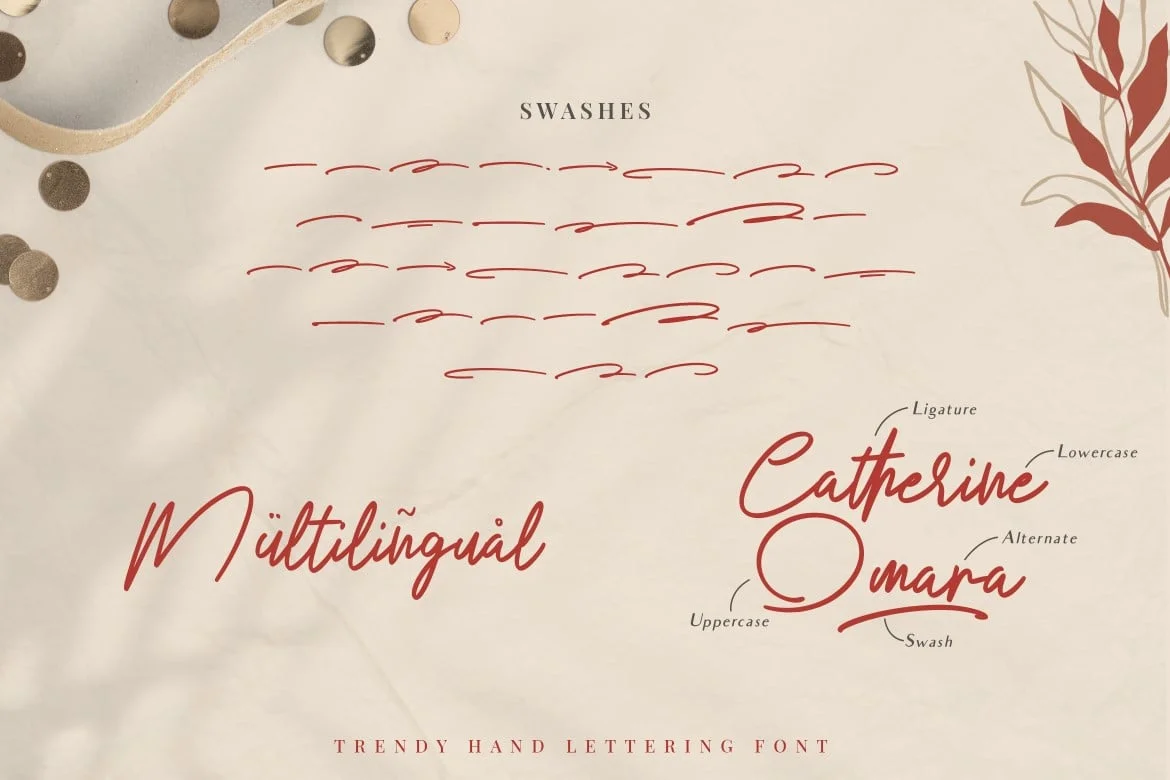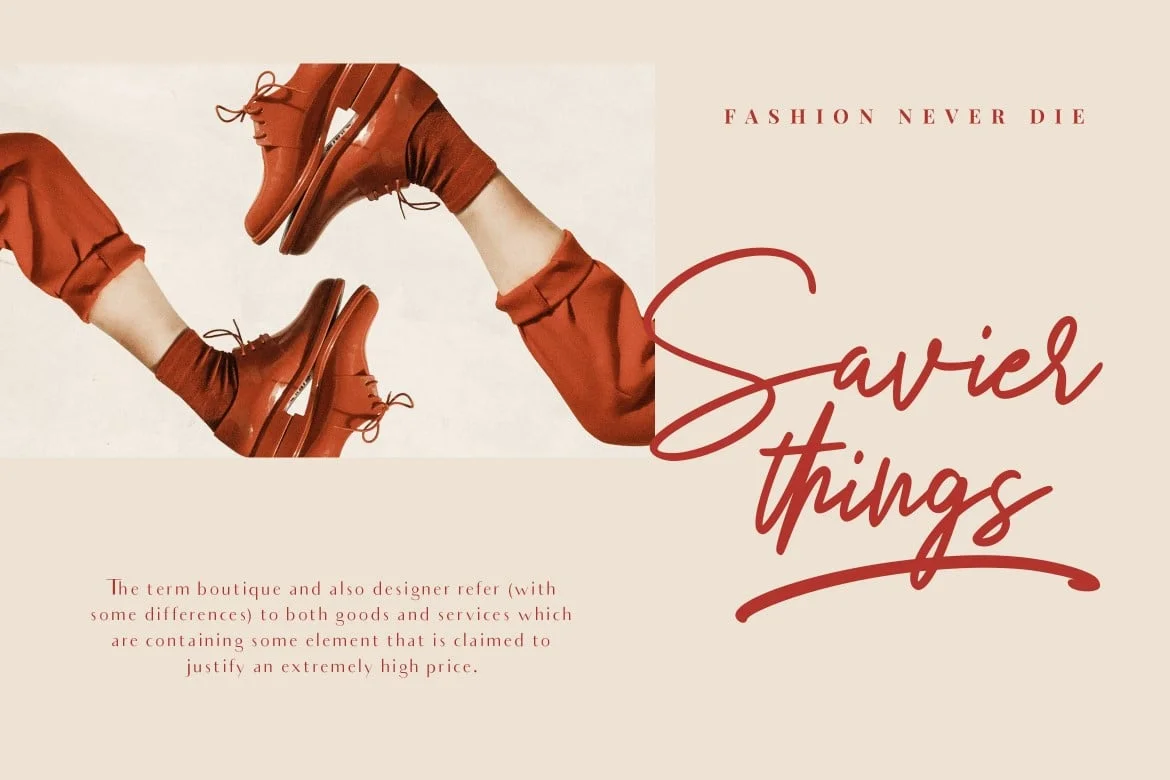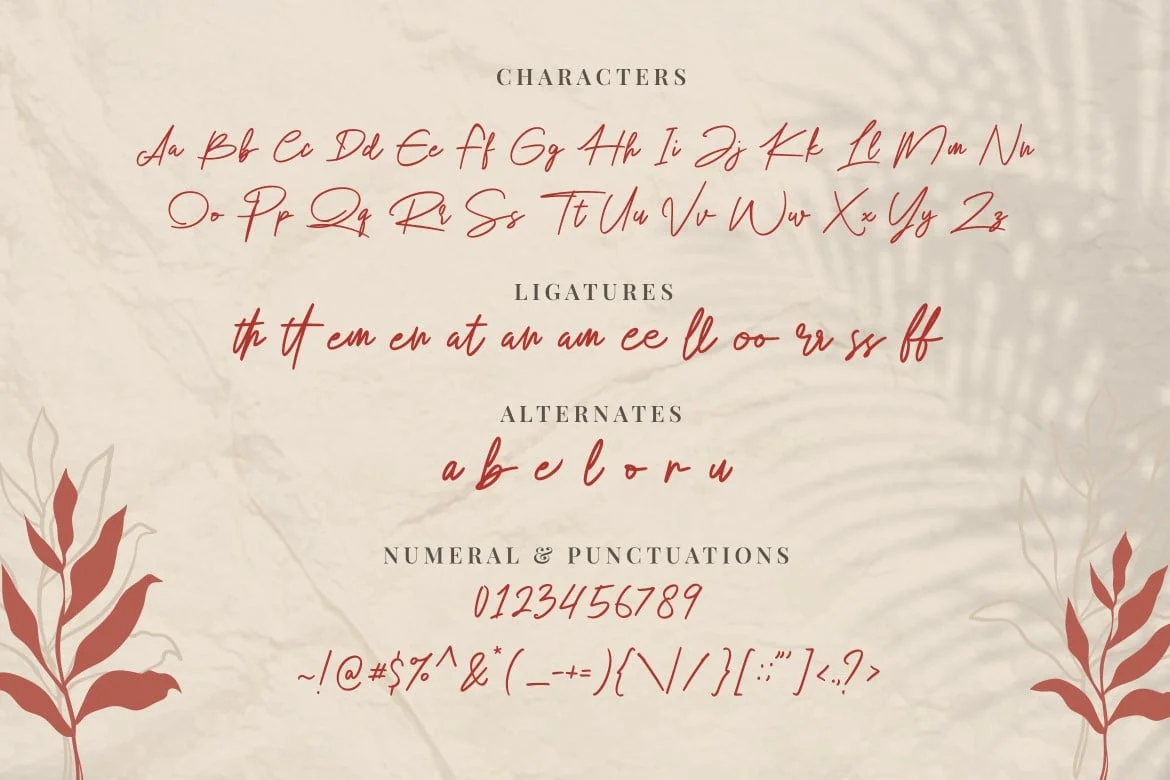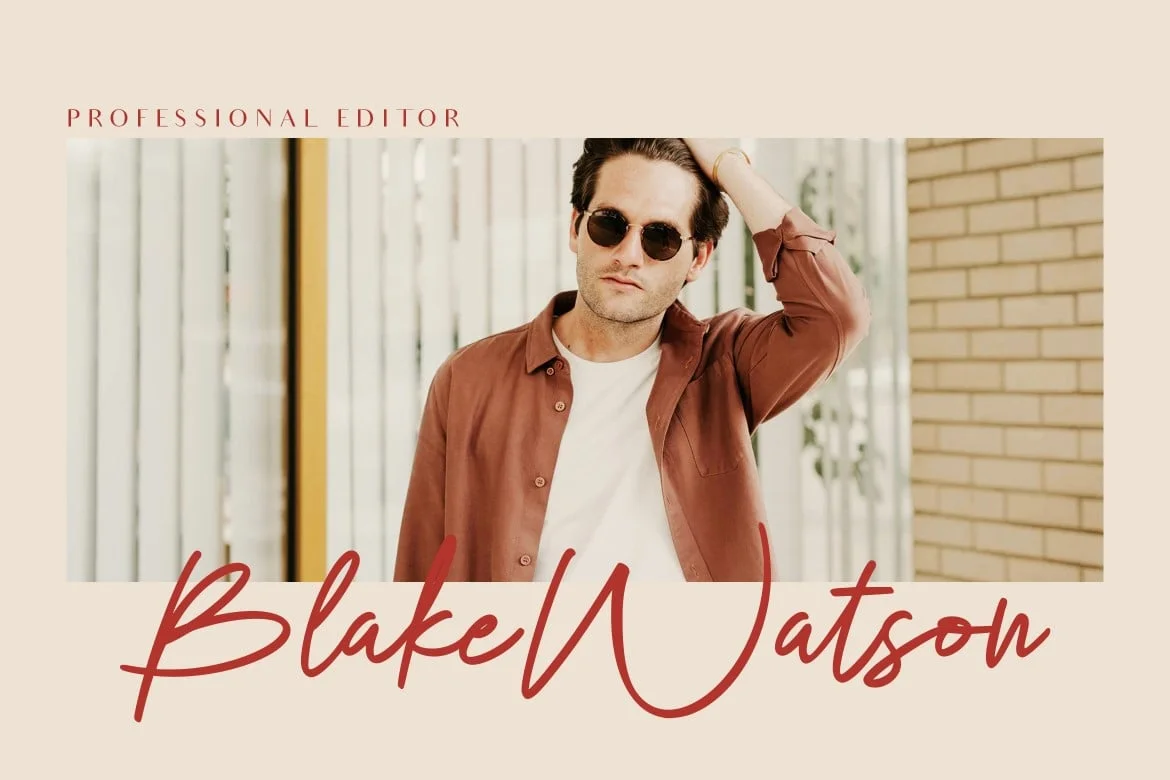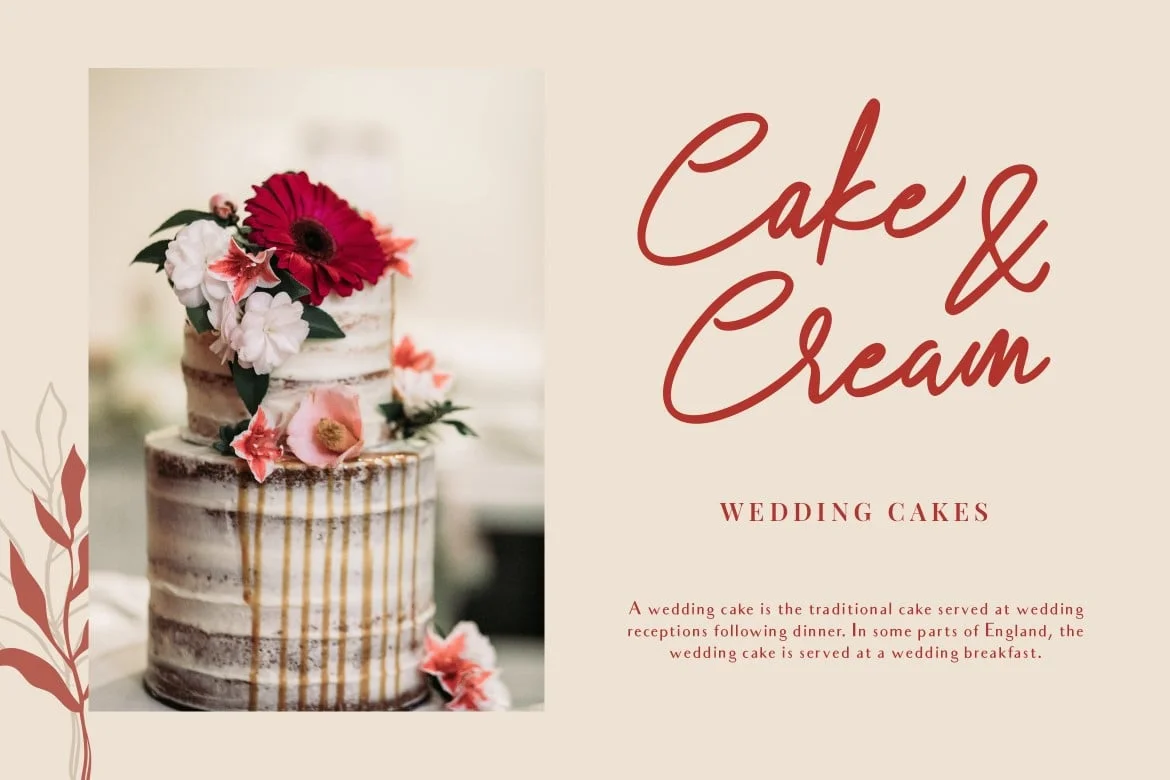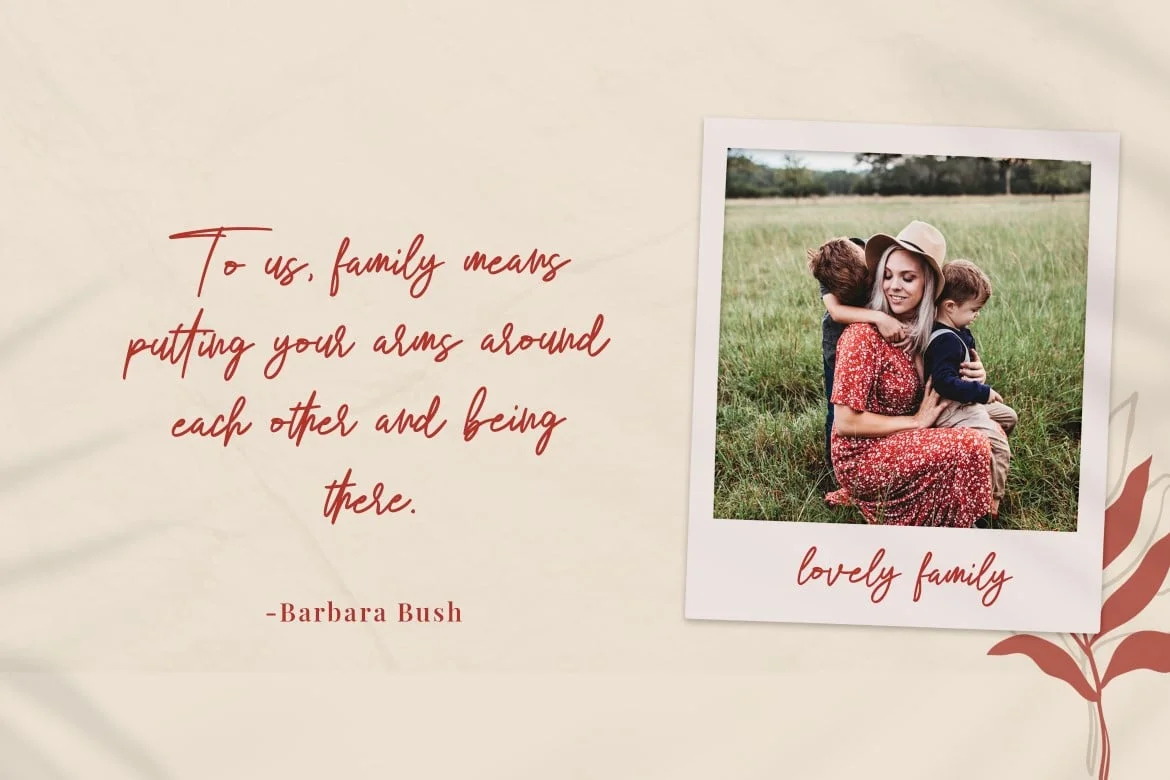
Winlove Wedding Font
The Winlove Wedding Font excels in triumphant design applications including victorious wedding invitations, love victory branding, winning couple logos, champion celebration packaging, victorious business cards, winning portfolios, triumphant greeting cards, love conquest social media graphics, winning event signage, and victorious marketing materials. Its winning script style makes it perfect for projects requiring triumphant elegance that communicates victory and establishes champion brand positioning with audiences seeking winning wedding experiences and victorious sophistication.
What makes the Winlove Wedding Font truly exciting is its exceptional ability to capture the triumphant spirit and victorious love of winning couples through powerfully crafted letterforms. The font features flowing, victorious strokes with winning flourishes and champion proportions that create a distinctly triumphant appearance. Each character displays masterful attention to victory detail with winning curves, triumphant connections, and champion spacing that give text a victorious, hand-lettered quality. The font's winning character and triumphant rhythm create an atmosphere of love victory while maintaining elegant sophistication and celebration authenticity.
The Winlove Wedding Font family typically includes regular weight with extensive character coverage, featuring uppercase and lowercase letters, numerals, punctuation marks, and international characters. The typeface often incorporates stylistic alternates, contextual ligatures, and victorious swashes that enhance its signature triumph. These additional elements provide designers with creative flexibility to customize text appearance and achieve more natural-looking winning handwriting that reflects the font's triumphant and victorious character.
This victorious signature font distinguishes itself through its remarkable balance of triumph and romantic elegance. Unlike defeated or weak fonts that lack winning appeal, Winlove Wedding Font embraces the power of victorious design to celebrate love conquests and create champion connections with wedding audiences. The font's winning character makes it essential for successful wedding planners, victorious celebration brands, and champion love businesses where celebrating love victories and creating triumphant memories is fundamental to success in competitive wedding markets.
The Winlove Wedding Font presents designers with an outstanding opportunity to incorporate triumphant elegance into their victorious projects. From champion wedding venues to winning celebration brands, this font delivers the victorious signature aesthetic that resonates with couples seeking triumphant and successful wedding experiences. Its winning appeal ensures your designs communicate love victory while the signature styling adds distinctive personality that reflects triumphant romance and winning sophistication in any application requiring victorious typography solutions.